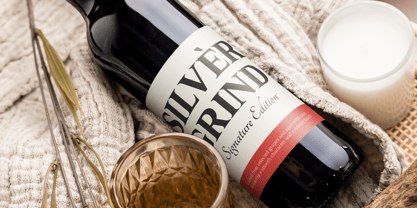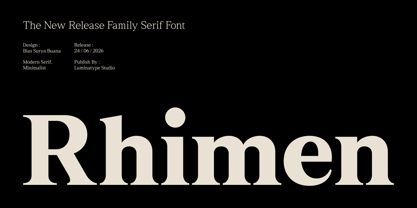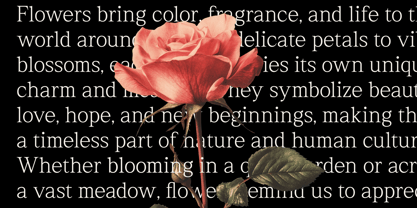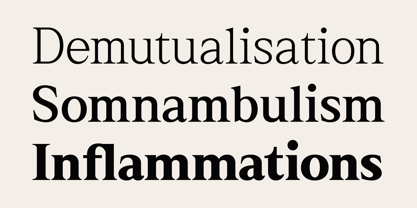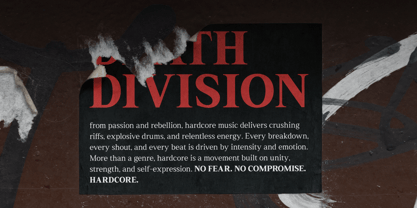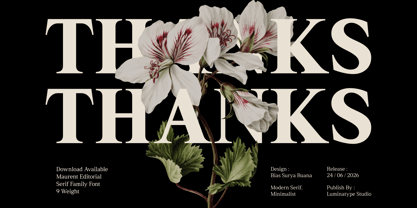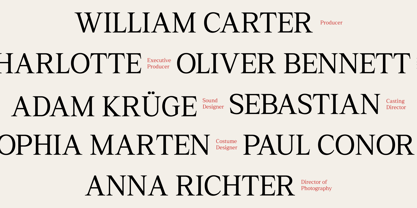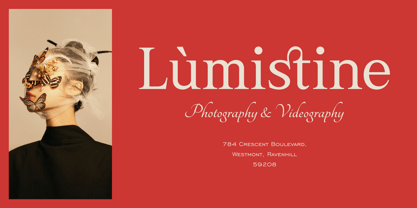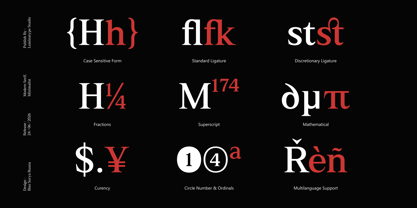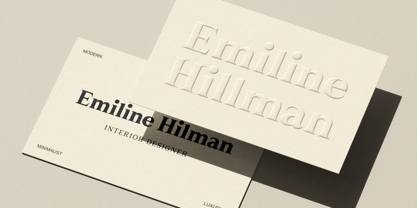
Rhimen
by Luminatype Studio
The Rhimen Font Family was designed by Bias Surya Buana and published by Luminatype Studio. Rhimen contains 4 styles and family package options. More about this family
Rhimen is a sophisticated serif typeface designed by Bias Surya Buana and published by Luminatype Studio. This font blends timeless elegance with a contemporary approach, delivering a refined and distinctive visual presence across a wide range of creative applications. Rhimen is available as a complete family of 9 weights, including Thin, Extra Light, Light, Regular, Medium, Semi Bold, Bold, Extra Bold, and Black, offering exceptional flexibility for establishing strong typographic hierarchy and cohesive design systems. Each weight is meticulously crafted to ensure consistency, readability, and character, providing the versatility needed for both subtle and bold expressions. With its graceful proportions, sharp details, and confident personality, Rhimen excels in editorial design, luxury branding, logos, packaging, invitations, and digital interfaces. Whether used for elegant headlines or sophisticated body text, Rhimen enhances clarity, style, and enduring character in every design project.